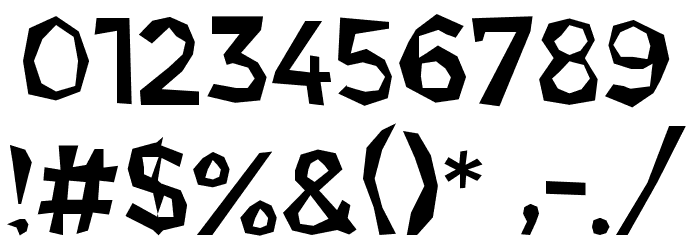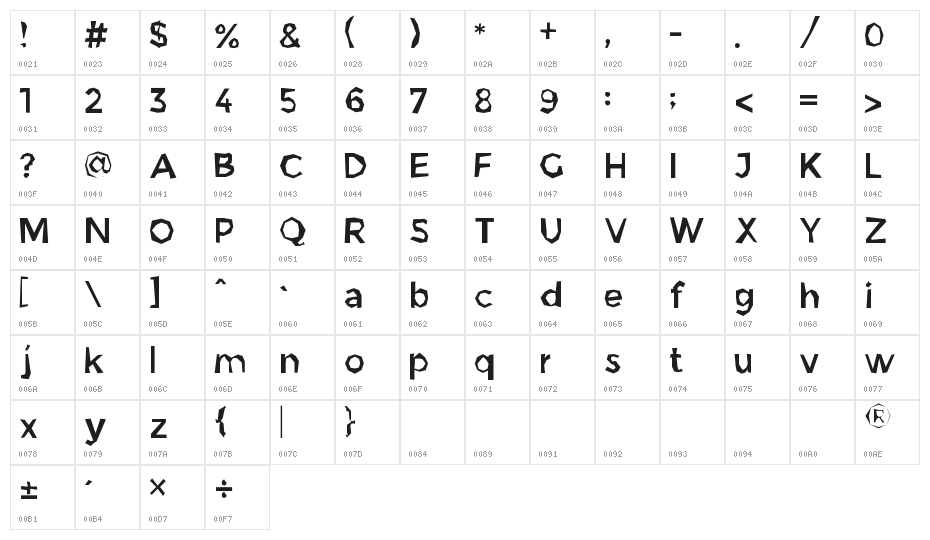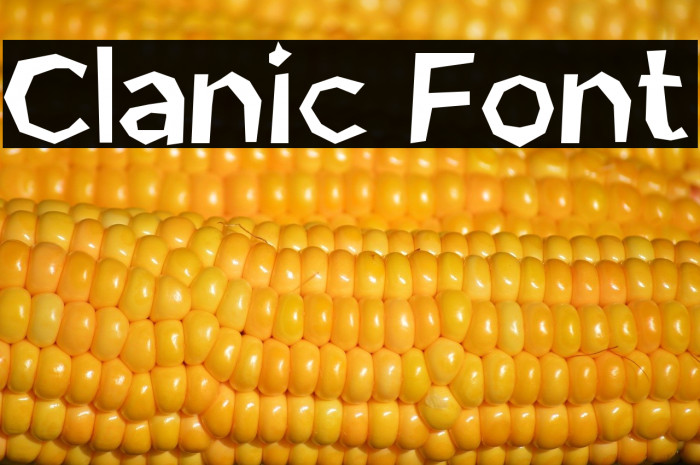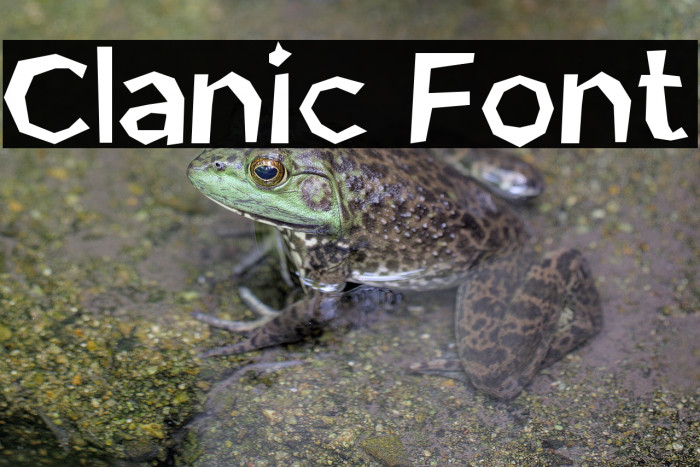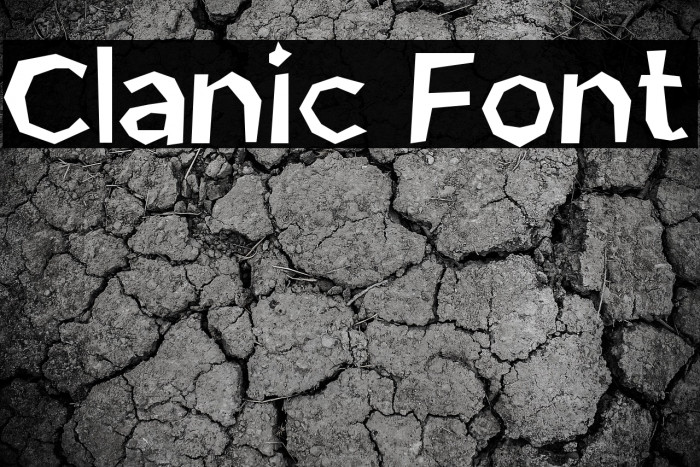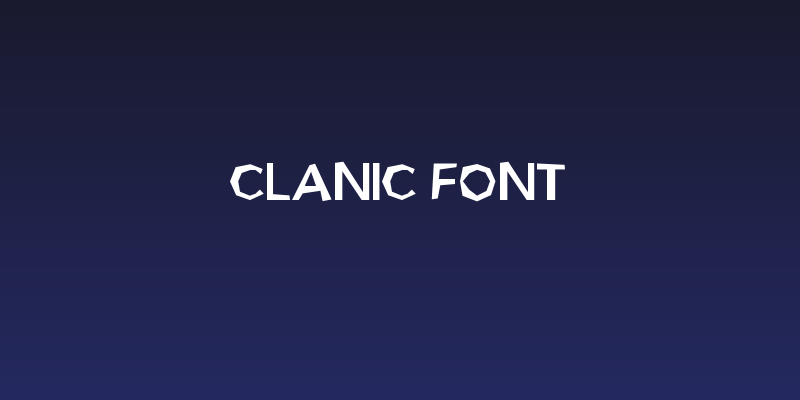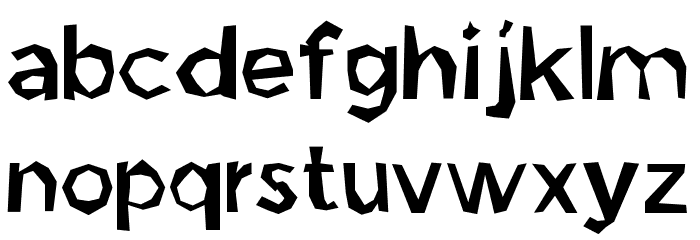
Clanic Font Description
This font features a bold and edgy design with irregular, angular shapes that give it a rugged and dynamic appearance. The uppercase and lowercase letters maintain a consistent style, characterized by sharp edges and a slightly distorted form, which adds a unique, handcrafted feel. The numerals and special characters follow the same aesthetic, ensuring a cohesive look across all text elements. This font's distinctive style makes it stand out, ideal for projects that require a strong visual impact.
Overall StyleModern, Decorative
Proposed ProjectsPerfect for branding, posters, album covers, and any creative project that requires a bold, eye-catching typeface.